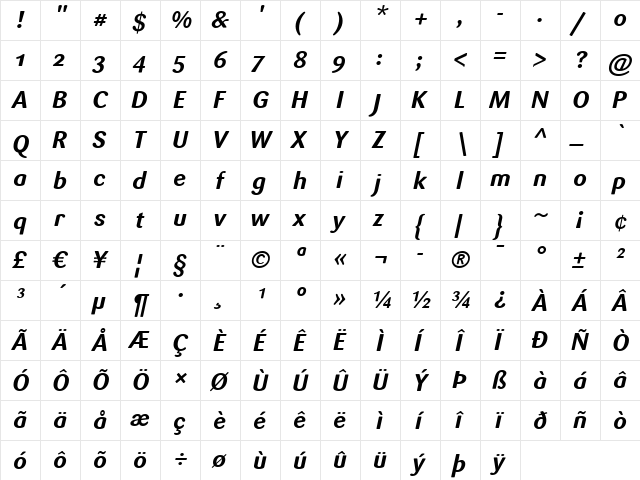
Sari Bold Italic
Design Context for Sari Typeface
Sari is a composed and adaptable typeface that performs quietly and consistently across a wide range of design contexts. Its italic angle brings a sense of urgency and motion to the letterforms. Its bold stroke weight gives it real presence on the page.
Pro Tip: Use Sari for emphasis, pull quotes, and subheadings where its slanted energy can add rhythm to the layout.